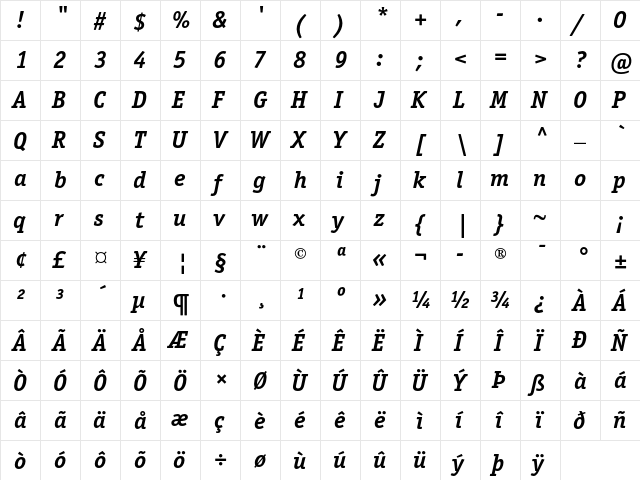
ITC Officina Serif Std Bold Italic Font Preview
| Designer | Erik Spiekermann |
Design Context for ITC Officina Serif Std Typeface
ITC Officina Serif Std carries the refined structure of traditional serif typography, with bracketed terminals and considered proportions that communicate credibility and craft. Its italic angle brings a sense of urgency and motion to the letterforms. The heavy weight commands attention and anchors typographic hierarchies.
Pro Tip: Use ITC Officina Serif Std for editorial body copy and considered headline work. Pair with a neutral sans for UI elements or captions to create a classic hierarchy.